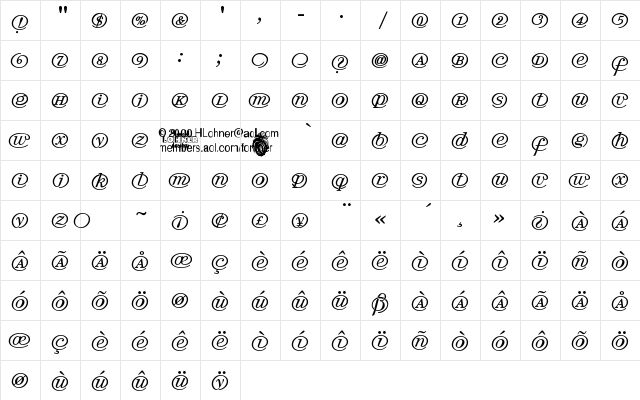
Arrobatherapy Regular Font Preview
Arrobatherapy Regular
Arrobatherapy Regular Font Details
Design Context for Arrobatherapy Typeface
Arrobatherapy is a composed and adaptable typeface that performs quietly and consistently across a wide range of design contexts.